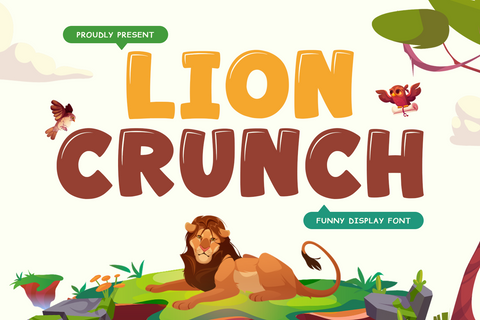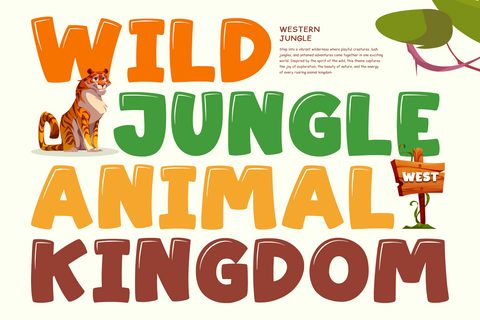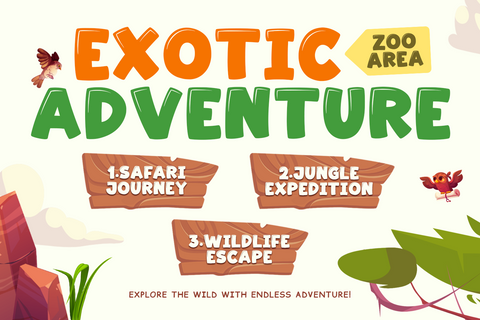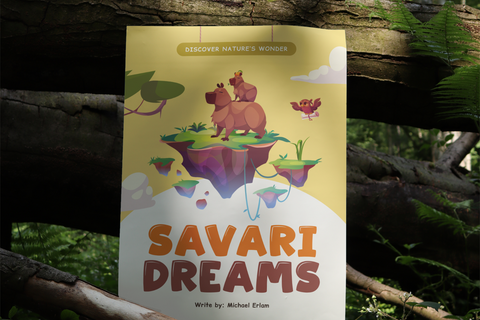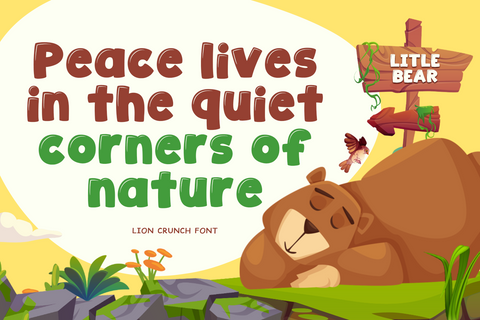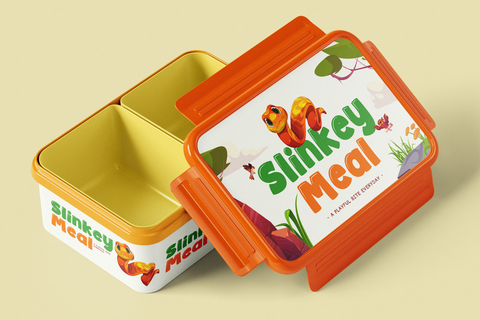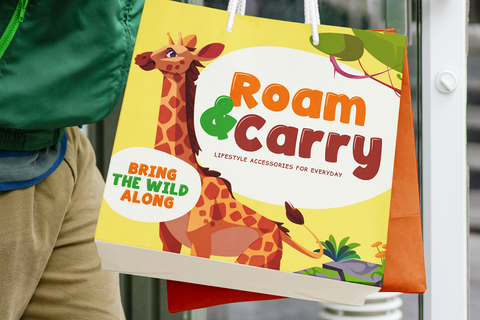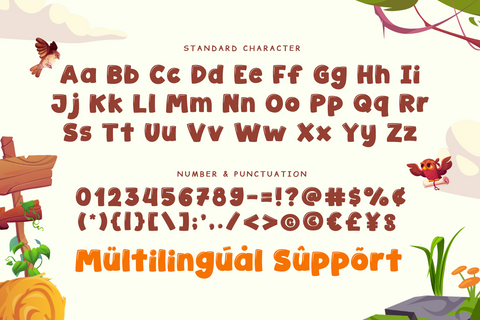
Lion Crunch - Food Font
Lion Crunch – Playful Kids Font
Lion Crunch is a fun and cheerful kids font designed to bring playful energy, creativity, and happy vibes into your designs. Inspired by the adventurous spirit of children and the bold personality of jungle themes, this font delivers a cute and lively appearance that instantly makes every project feel more exciting and full of joy.
Crafted with bold playful letterforms and friendly curves, Lion Crunch combines a modern cartoon style with excellent readability. Its energetic character creates a warm and imaginative atmosphere, making it perfect for children’s projects, school designs, toy branding, and fun creative creations.
This font is ideal for kids-themed projects such as birthday invitations, educational materials, storybooks, toy packaging, classroom decorations, and playful social media graphics. The cute and adventurous style helps designs feel more engaging, colorful, and memorable for children and families alike.
Lion Crunch works beautifully for posters, stickers, mugs, logos, packaging, YouTube thumbnails, and party decorations. Its playful personality adds charm and excitement, helping your designs stand out with a fun and friendly visual style.
The font is also perfect for DIY and crafting projects including Cricut designs, SVG files, handmade decorations, kids merchandise, and custom gifts. Whether used for print or digital media, Lion Crunch adds a bright and joyful touch to every creation.
Key Features
Playful Kids Style
Cute and energetic letterforms inspired by fun childhood adventures.
Bold & Cheerful
Designed to create lively and eye-catching designs.
Friendly & Readable
Easy to read while maintaining a fun cartoon personality.
Versatile Kids Font
Perfect for children’s branding, education, and creative projects.
Craft-Friendly Design
Ideal for Cricut, SVG files, DIY crafts, and handmade products.
Multilingual Support
Includes extended multilingual characters for wider creative use.
If you are looking for a font that combines playful charm, adventurous energy, and cheerful kids style, Lion Crunch is the perfect choice. This font helps you create designs that feel colorful, fun, and full of imagination.